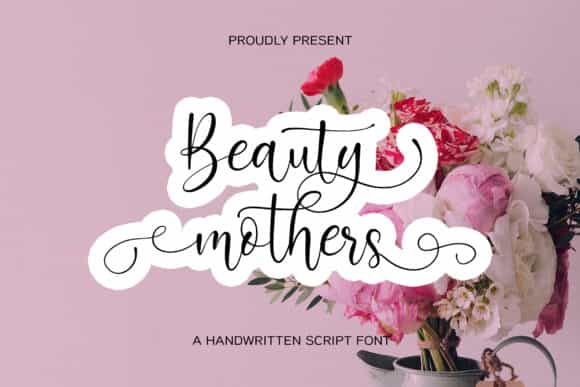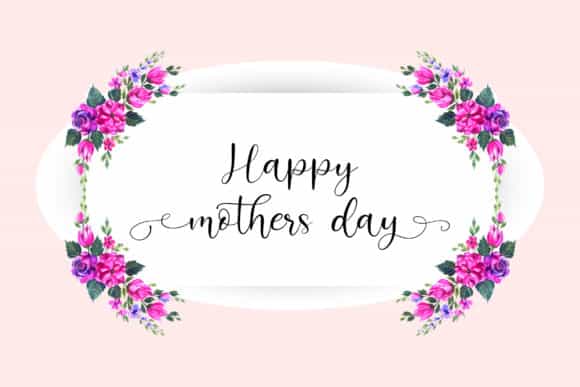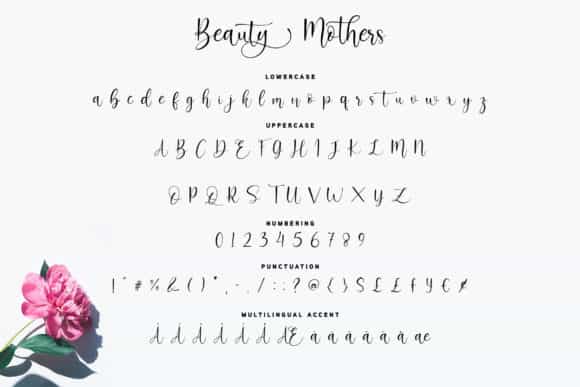
Beauty Mothers is a calligraphy font with characters that effortlessly add a decorative flair to your projects. Let Beauty Mothers inspire you to craft designs for weddings, birthdays, greetings and beyond!